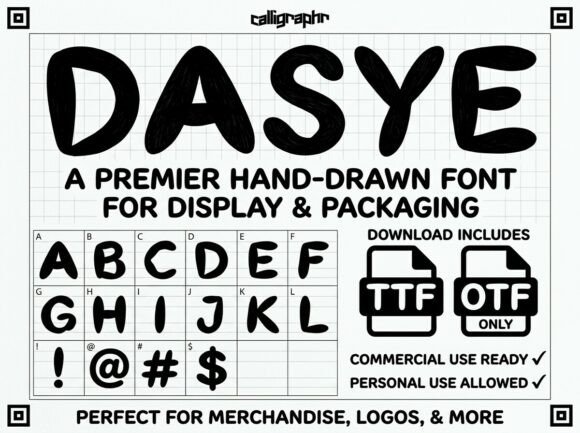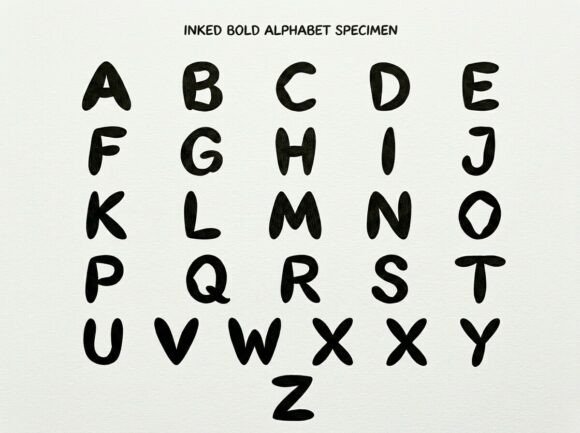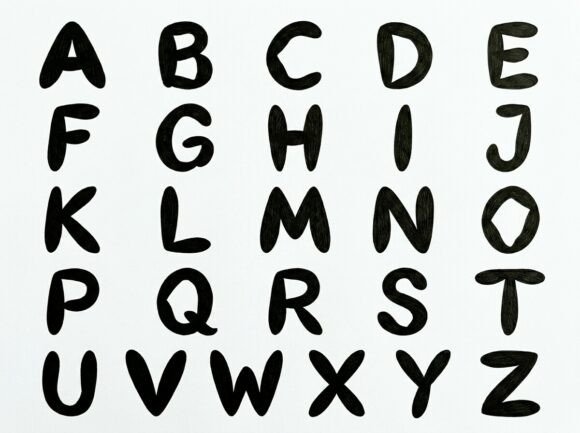
Introducing Dasye Font: Add a Touch of Handcrafted Personality to Your Designs
In the world of digital design, it’s easy to get lost in a sea of generic, cookie-cutter fonts. But what if you could inject a dose of authentic, handcrafted personality into your projects? Look no further than Dasye, a premier hand-drawn font designed for maximum versatility. With its bold, rounded letterforms and subtle, sketchy texture, Dasye is the perfect choice for designers and crafters looking to add a touch of artisanal warmth to their work.
The Unique Characteristics of Dasye Font
Dasye’s unique charm lies in its bold, rounded letterforms, characterized by a subtle, sketchy texture that mimics the natural imperfections of marker ink on paper. This texture gives the font a friendly, approachable visual weight and organic rhythm that’s hard to find in digital fonts. The result is a typeface that feels both modern and handmade, perfect for designs that need a personal touch.
Perfect for Modern Packaging and Playful Merchandise
Dasye is an exceptional choice for modern packaging, playful merchandise, boutique logos, and engaging social media headers. Its bold, eye-catching letterforms make it perfect for designs that need to stand out on store shelves or social media feeds. Whether you’re designing for a casual apparel brand, crafting a standout header for a creative campaign, or creating eye-catching packaging for a new product launch, Dasye delivers a sense of artisanal warmth and professional, human-centric design to every word.
What Sets Dasye Apart
So what sets Dasye apart from other hand-drawn fonts on the market? For starters, its versatility is unmatched. The font features a wide range of applications, from bold headlines to playful body copy. Additionally, Dasye’s unique texture and organic rhythm give it a distinctive feel that’s both modern and timeless. Whether you’re a seasoned designer or a crafty DIY enthusiast, Dasye is the perfect choice for anyone looking to add a touch of personality to their designs.
Why Designers and Crafters Love Dasye
Designers and crafters love Dasye for its unique combination of style and versatility. Here are just a few reasons why:
- Authentic, handcrafted feel: Dasye’s hand-drawn letterforms give it a genuine, handmade feel that’s perfect for designs that need a personal touch.
- Maximum versatility: Dasye features a wide range of applications, from bold headlines to playful body copy.
- Easy to read: Despite its bold, playful letterforms, Dasye is surprisingly easy to read, making it perfect for designs that need to communicate a message.
- Customizable: Dasye’s unique texture and organic rhythm make it easy to customize and pair with other fonts.
How to Use Dasye in Your Designs
Using Dasye in your designs is easy. Here are a few tips to get you started:
- Pair with other fonts: Dasye pairs perfectly with other fonts, especially those with a clean, modern aesthetic.
- Experiment with colors: Dasye’s unique texture and organic rhythm make it easy to experiment with different colors and textures.
- Use for headlines and body copy: Dasye is perfect for both headlines and body copy, making it a versatile addition to any design.
In conclusion, Dasye is a premier hand-drawn font that’s perfect for designers and crafters looking to add a touch of authentic, handcrafted personality to their projects. With its bold, rounded letterforms and subtle, sketchy texture, Dasye delivers a sense of artisanal warmth and professional, human-centric design to every word. Whether you’re designing for a casual apparel brand or crafting a standout header for a creative campaign, Dasye is the perfect choice for anyone looking to inject a dose of personality into their designs.